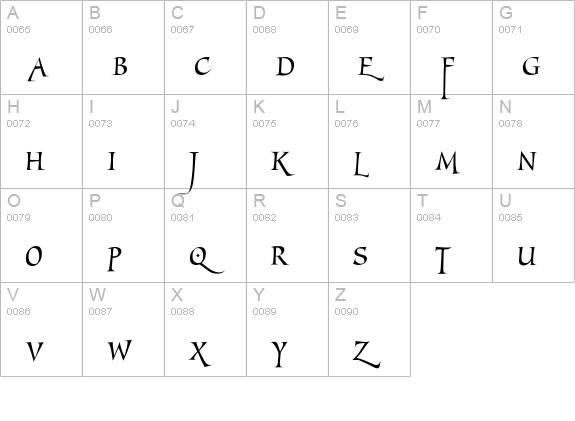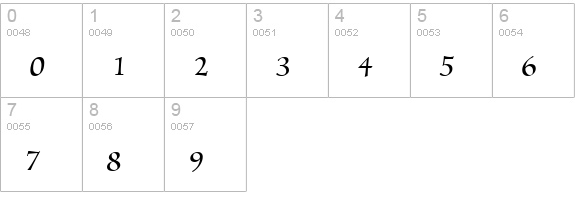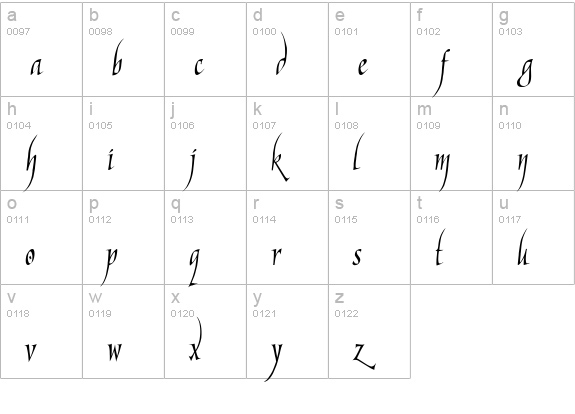
MarigoldWild Font Details
Introducing MarigoldWild font, a stunningly versatile typeface that effortlessly combines elegance with a touch of whimsy. This font is sure to captivate and enchant, making it the perfect choice for a wide range of creative projects. With its intricate and elaborate letterforms, MarigoldWild font adds a unique and artistic flair to any design. Each character is meticulously crafted, showcasing the delicate curves and fluid lines that give this font its distinct personality. Whether used for headlines, logos, invitations, or any other design venture, MarigoldWild font will surely make a lasting impression. One of the most remarkable things about MarigoldWild font is that it is freely available for download at FontsMarket.com. This means that you can easily access and utilize this beautiful font without any constraints or limitations. It's an incredible opportunity for designers, artists, and enthusiasts to enhance their creative endeavors with a truly exceptional typeface. With its wide range of glyphs and extensive language support, MarigoldWild font ensures that you can express your ideas and messages in a multitude of languages and styles. From Latin-based languages to Cyrillic and beyond, this font is ready to accompany your creative journey wherever it may take you. The versatility of MarigoldWild font is further enhanced by its various stylistic alternates, ligatures, and swashes. These additional features provide even more design possibilities, allowing you to customize and personalize your projects to perfection. The timeless beauty and expressive nature of MarigoldWild font make it a must-have in any typographic arsenal. Its graceful curves and intricate details bring a touch of sophistication to any design, while its playful elements add a sense of joy and whimsy. Whether you're designing branding materials, editorial layouts, packaging, or any other creative endeavor, MarigoldWild font is here to elevate your projects to new heights. Discover the beauty of this font and unleash your creativity with MarigoldWild font, available for free download at FontsMarket.com.